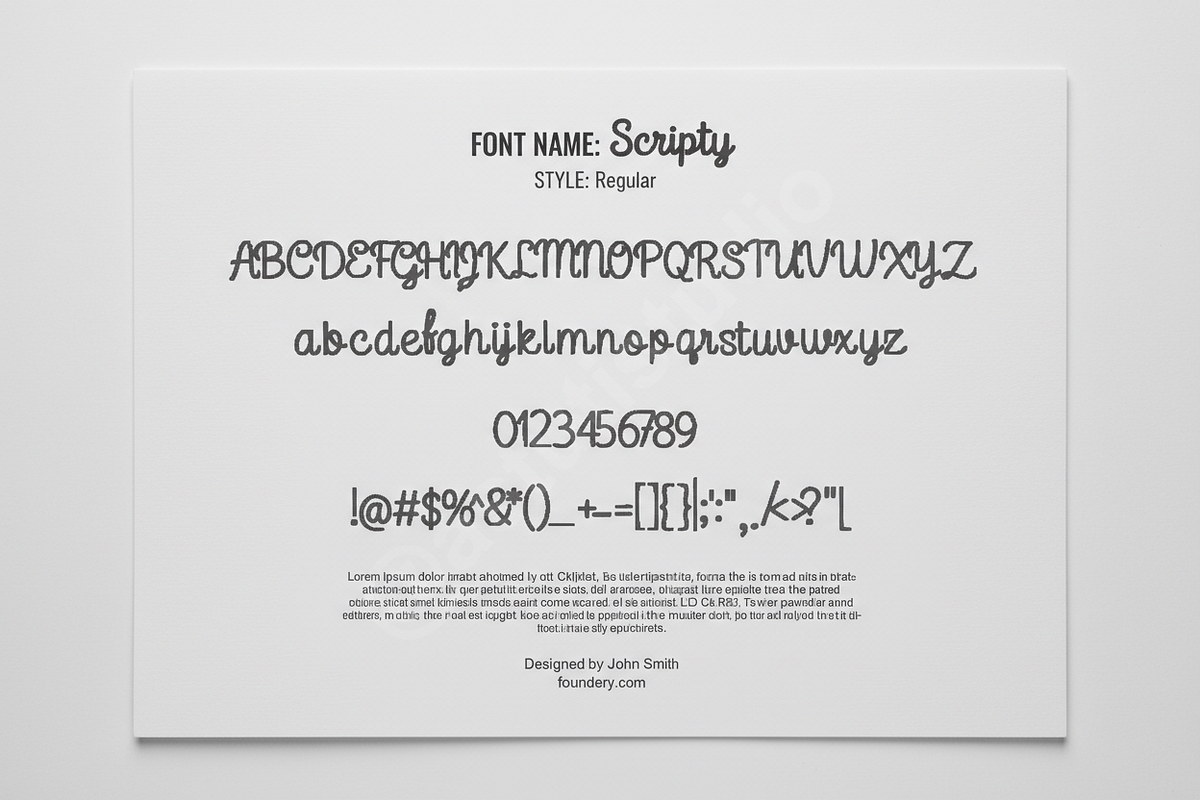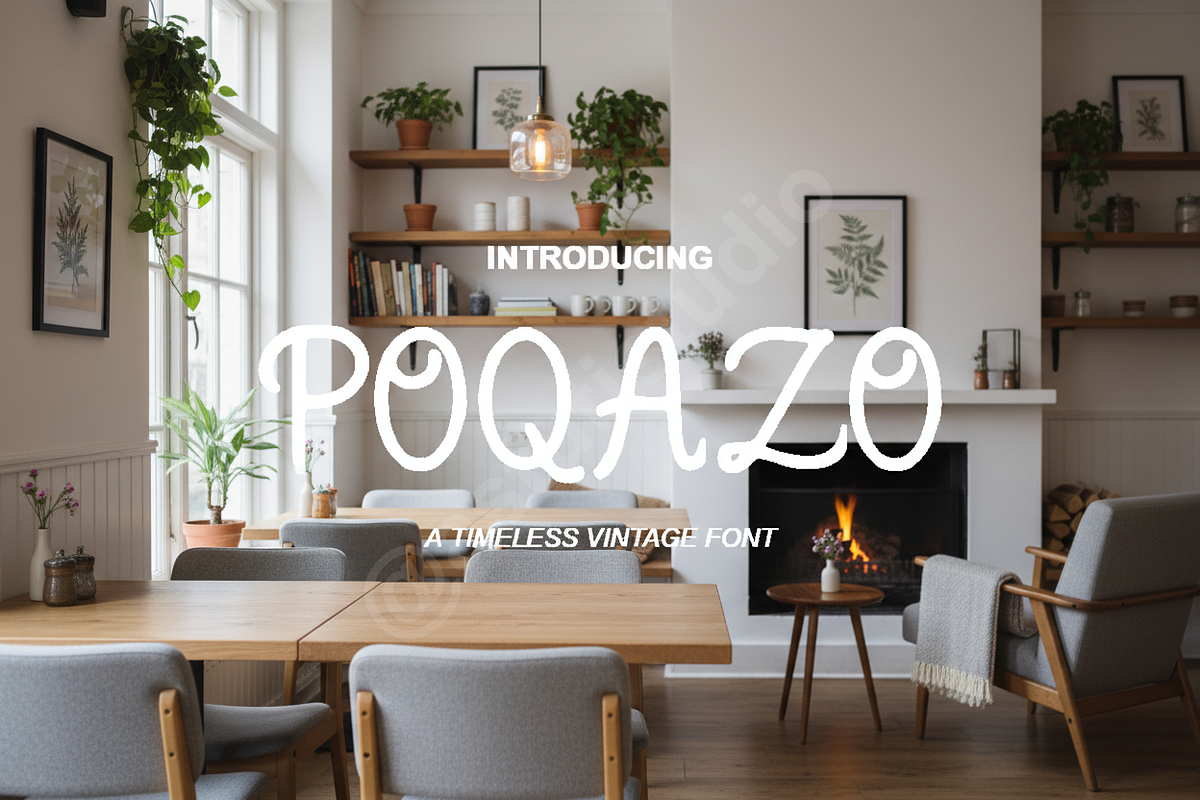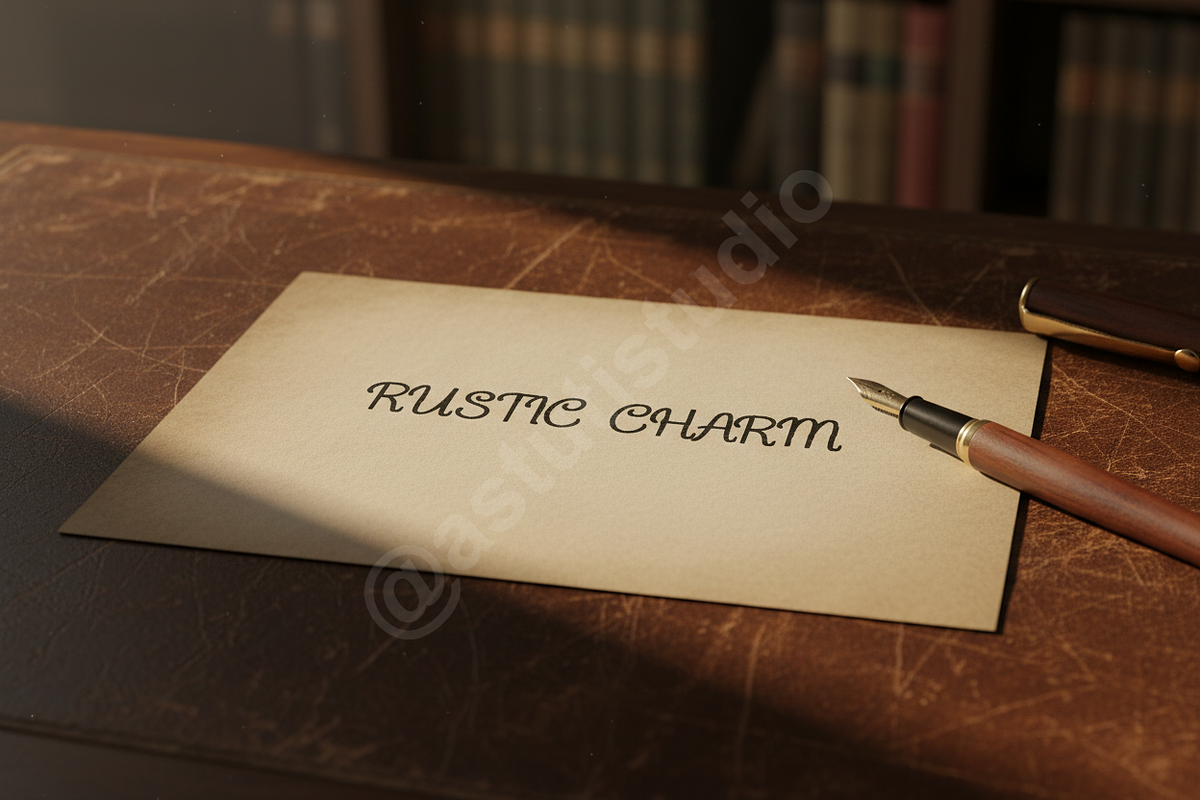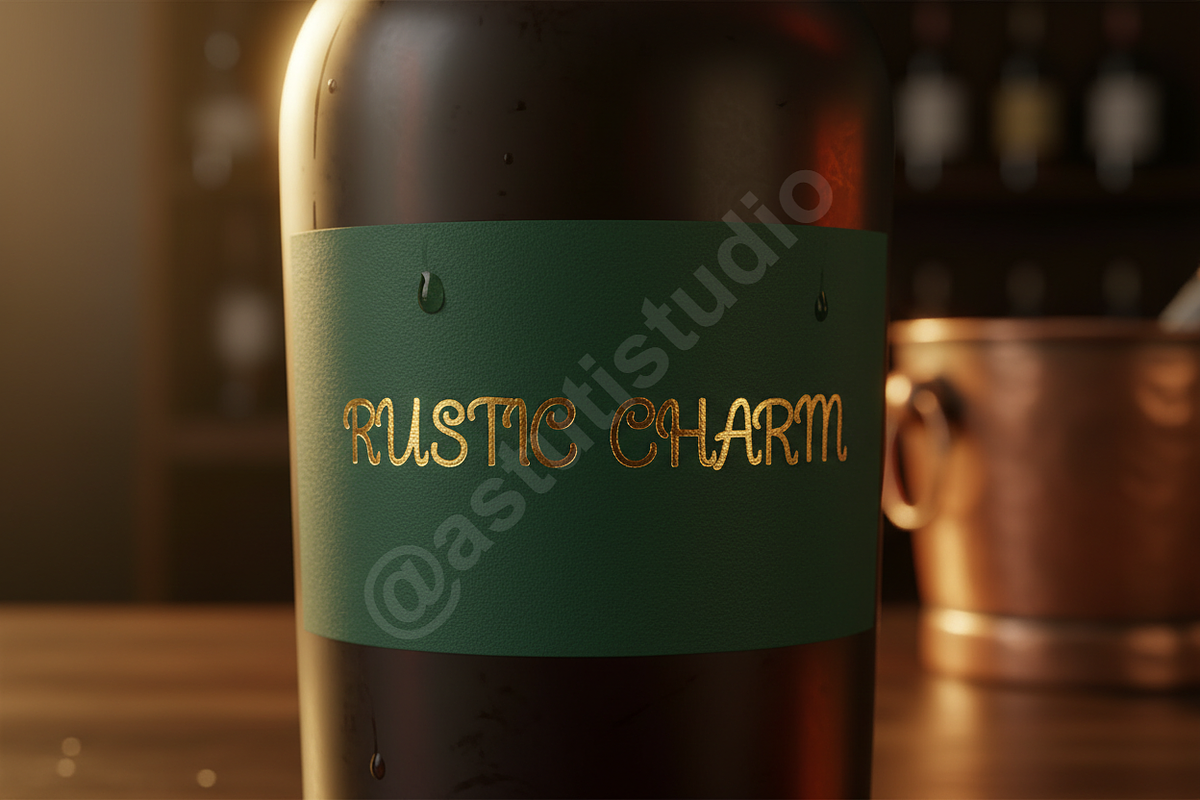
Poqazo | Elegant Luxury Serif Typef
Poqazo is a premium serif typeface meticulously crafted for high-end aesthetic projects. Drawing inspiration from modern editorial design, it strikes a sophisticated balance between timeless elegance and contemporary flair. This font is the perfect choice for luxury branding, high-fashion magazines, and elevated social media content.
- Distinctive character sets with unique ligatures
- Clean, high-contrast strokes for a premium feel
- Optimized for both large display headings and refined body text
- Extensive multilingual support for global applications
- High-legibility spacing and kerning
- Full uppercase and lowercase character sets
- Numbers and comprehensive punctuation
- A selection of stylistic alternates and ligatures